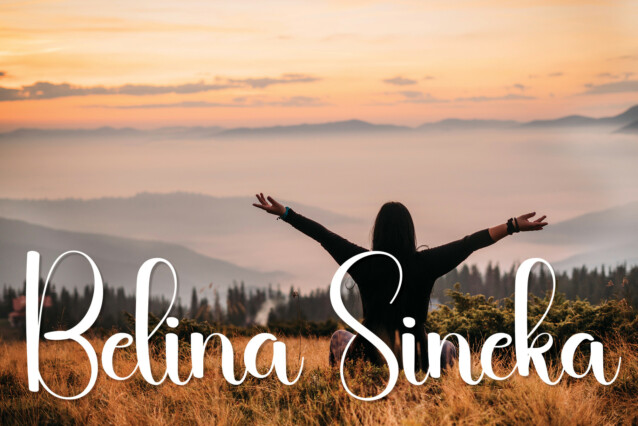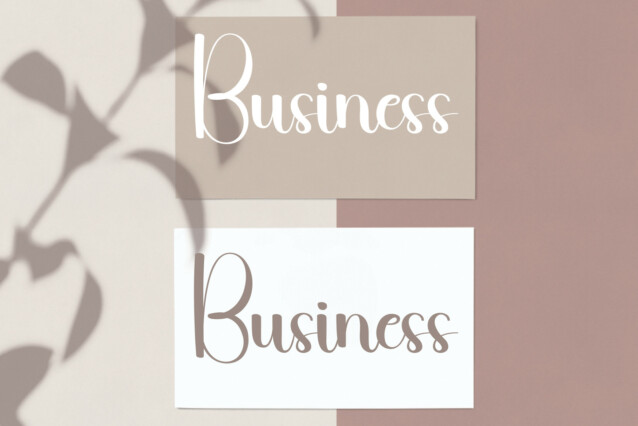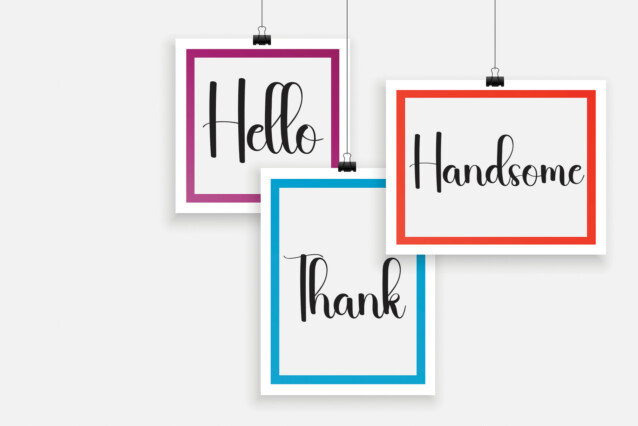
Handheld Script Font
Handheld Script Font is a neat and casual handwritten script font. Whether you’re using it for crafts, digital design, presentations, or making greeting cards, this font has the potential to become your favorite go-to font, no matter the occasion!